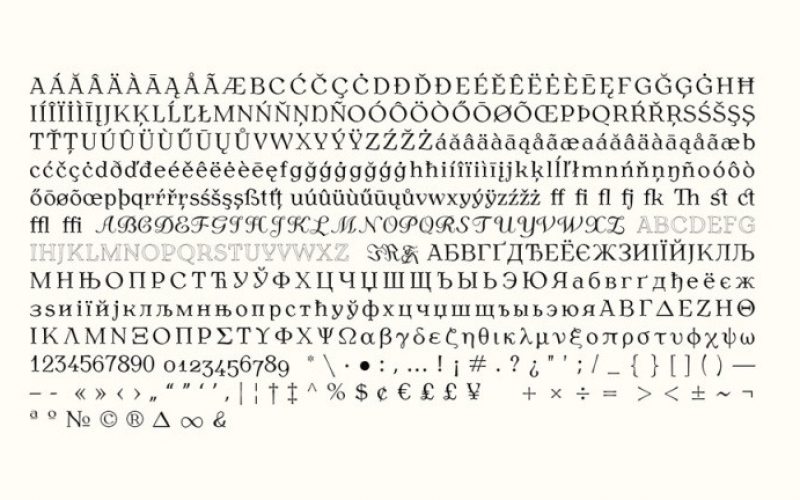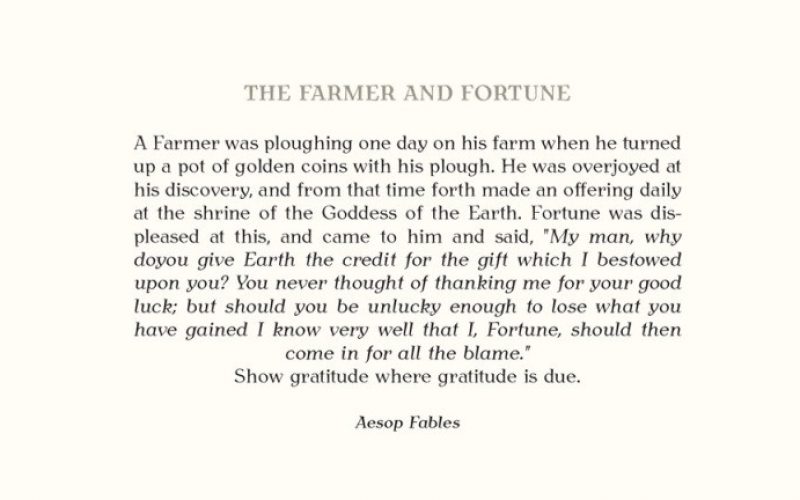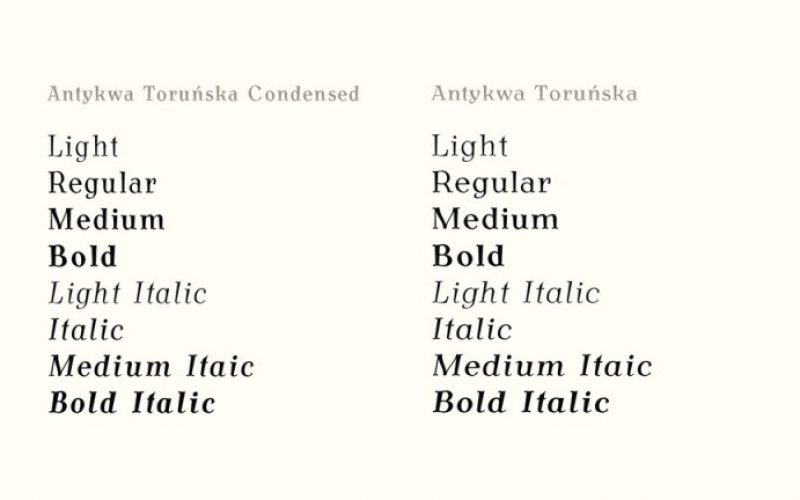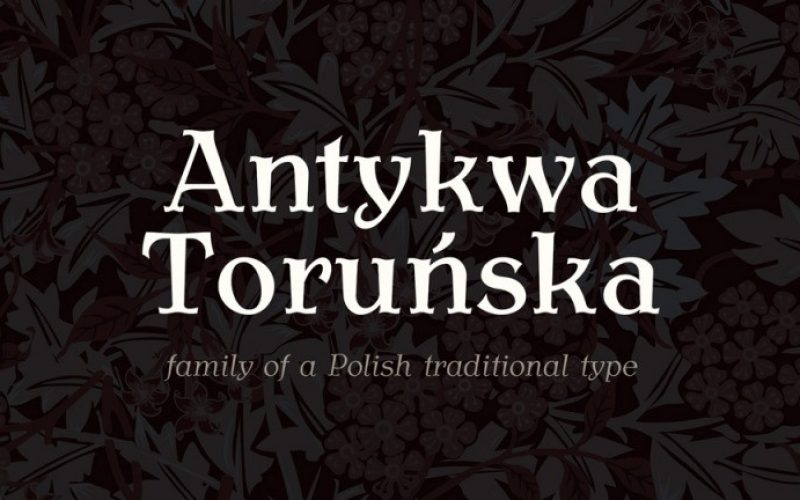
Antykwa Torunska Serif Font
Antykwa Toruńska (meaning just “Antiqua of Torun”) is an old style serif typeface originally designed by Zygfryd Gardzielewski, a typographer from Toruń (Thorn), Poland. The font is mainly used for typesetting of small prints. Its characteristic features are the widening of vertical stems at the top and the wave-like form of some of the horizontal and diagonal lines as well as of the serifs. Antykwa Toruńska was first cast in metal in 1960 in the Grafmasz typefoundry in Warsaw.
Antykwa Toruńska font family comes in Normal and Condensed styles, 4 weights from Light to Bold with matched Italics.
Designer Name: | Janusz M. Nowacki |